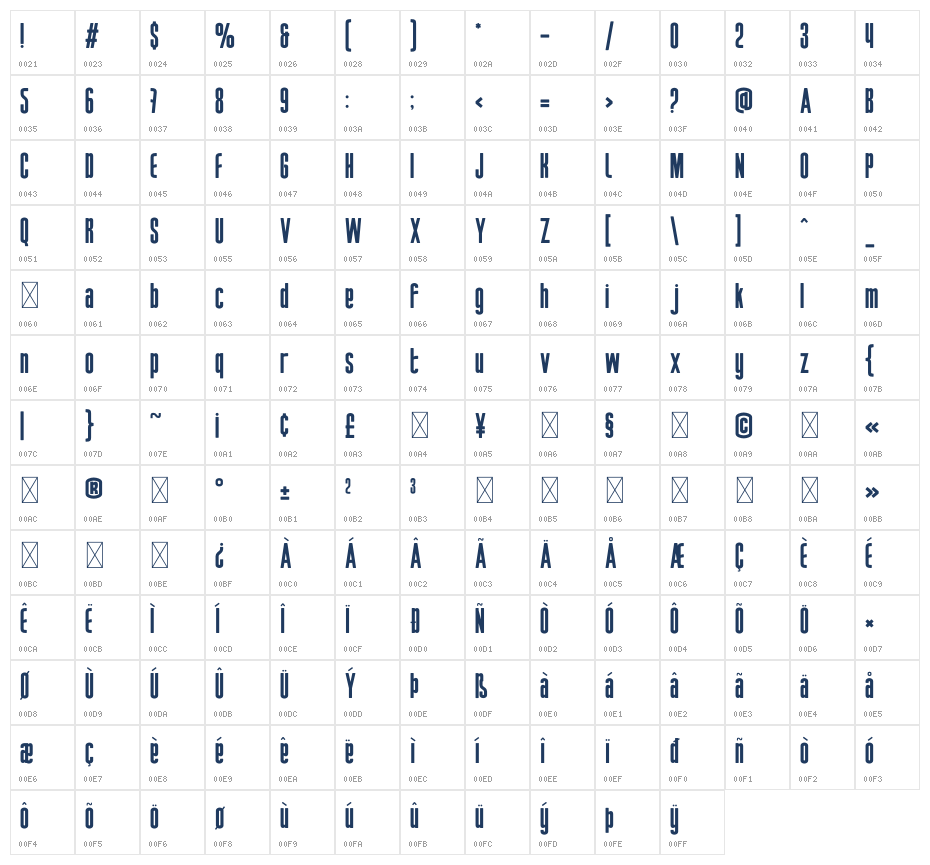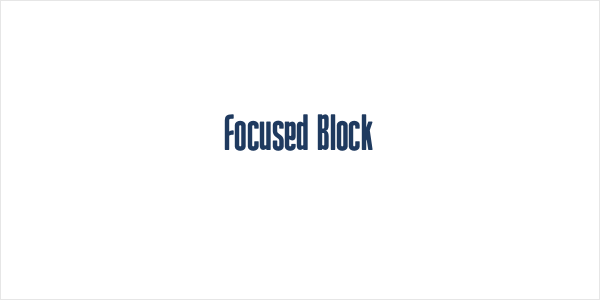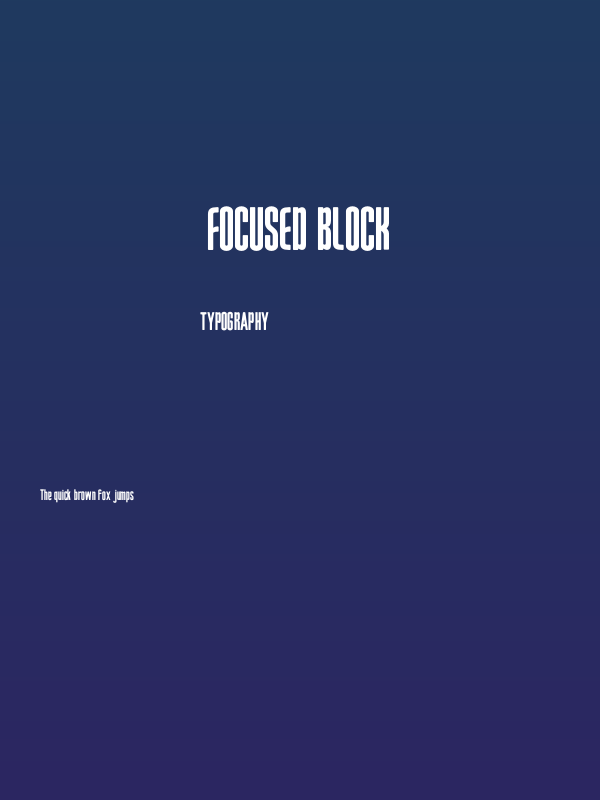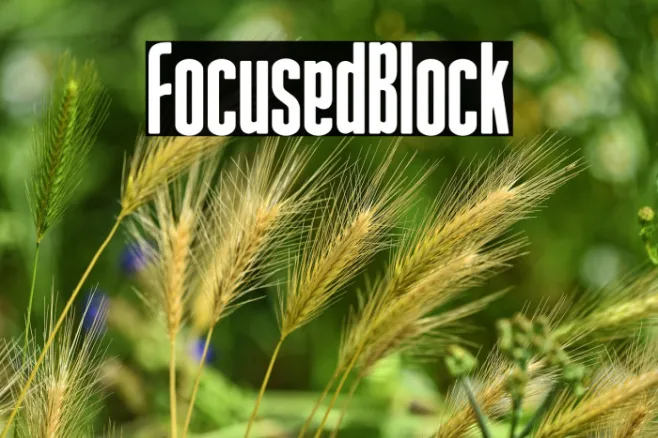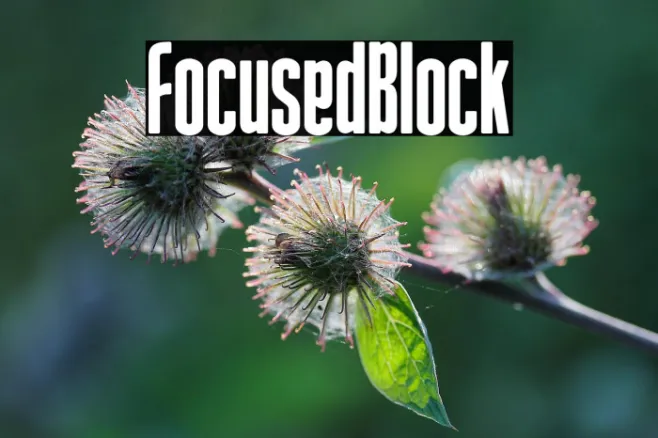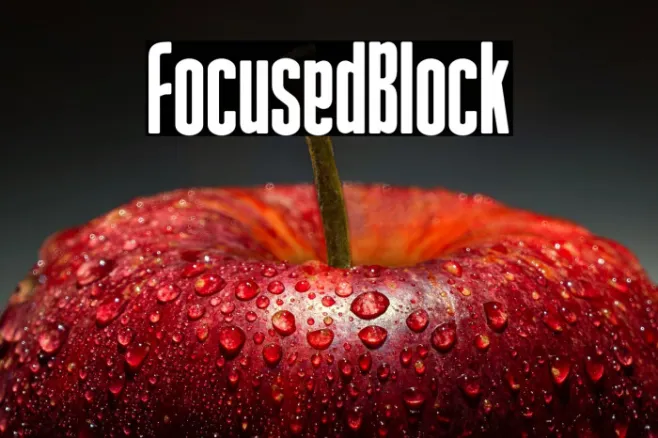
Focused Block Font
Focused Block Description
Bold, condensed sans-serif font with a modern and geometric style, featuring uniform stroke widths and minimal contrast.
| Overall Style | Modern, Geometric |
| Use Case | Headlines, Display text, Logos |